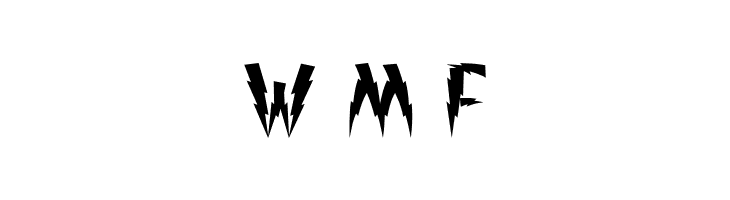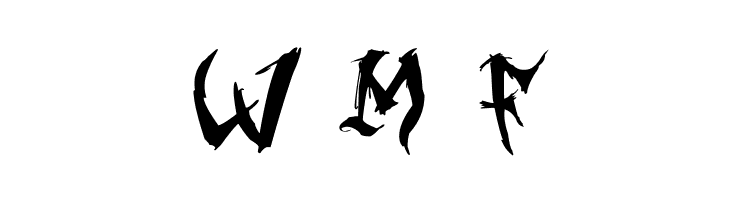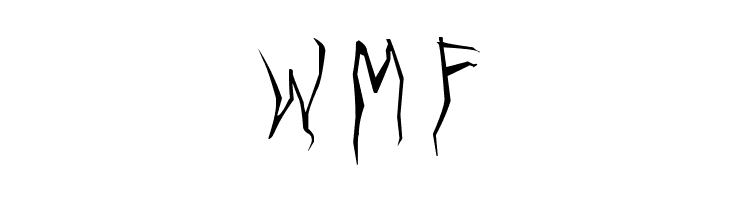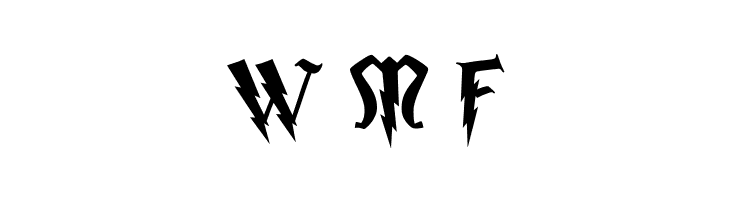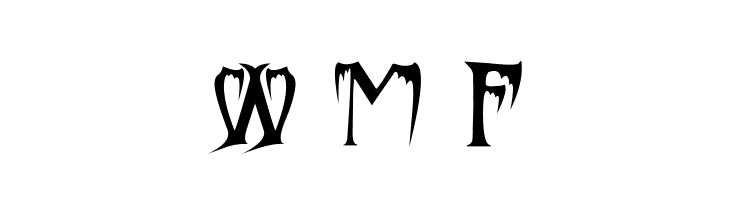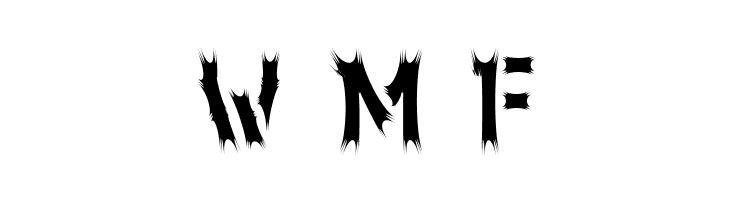
A distressed, grungy font with bold, jagged edges and a dramatic style.
A rugged, stencil-style font with jagged edges and a bold presence.
A bold, jagged gothic font with sharp, angular characters.
A bold, distressed font with a jagged, thorny appearance.
A bold, jagged font with a mystical, blackletter-inspired style.
A bold, spiky font with dramatic, jagged edges for a striking visual impact.